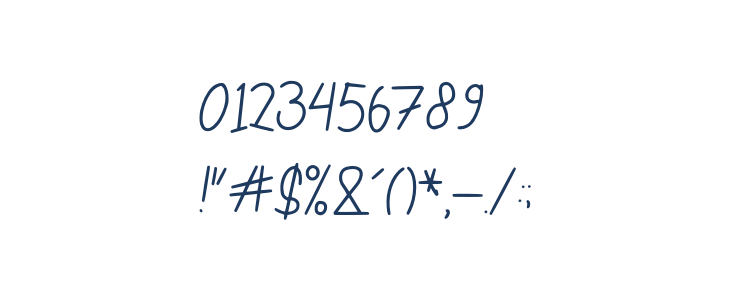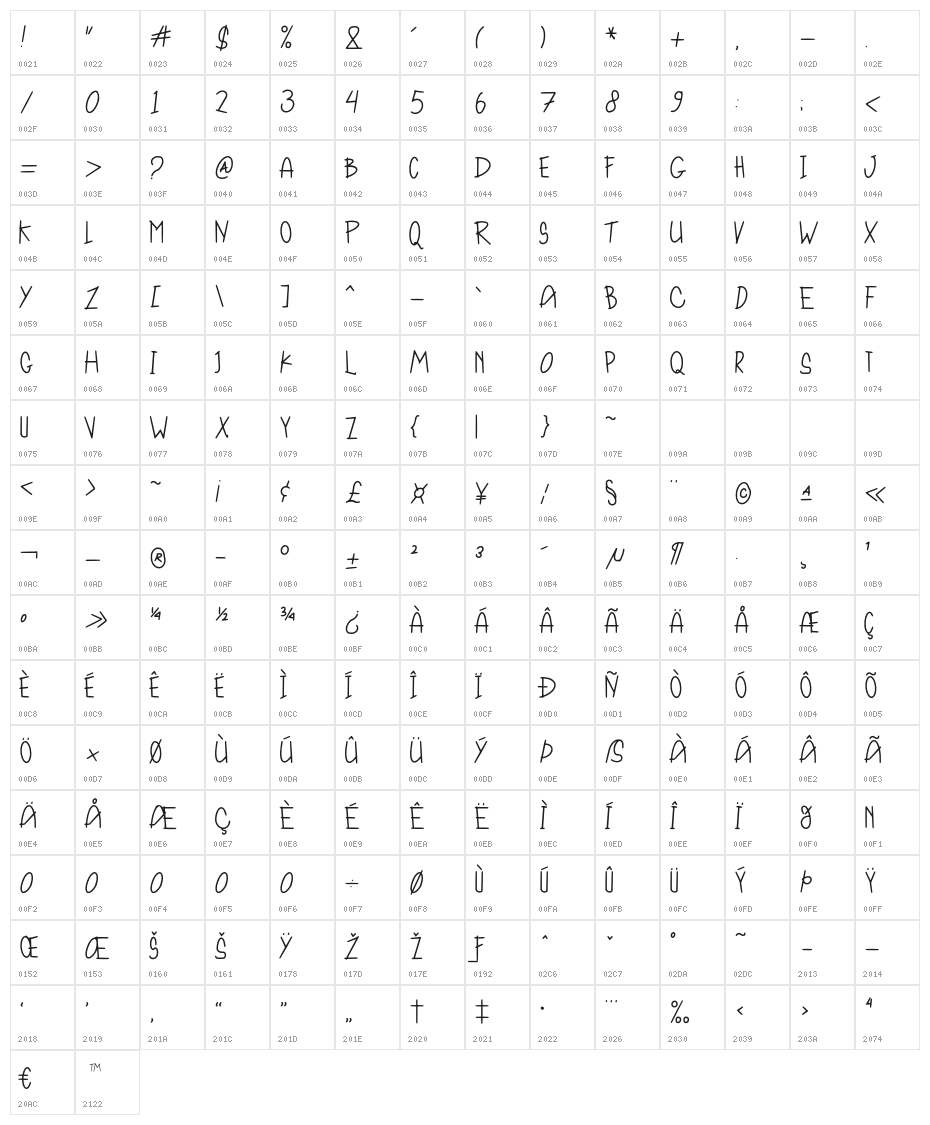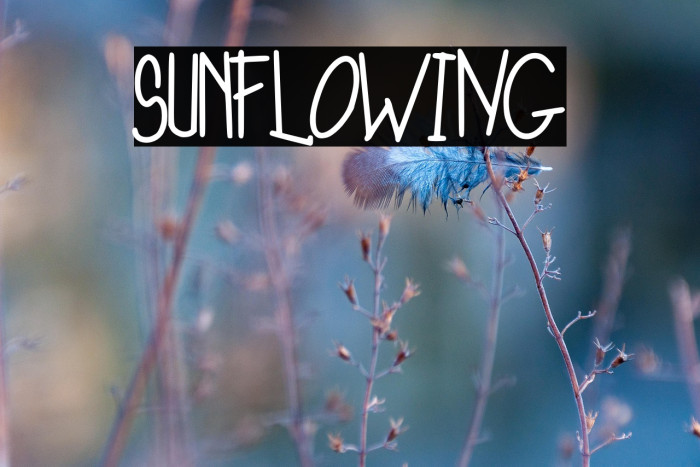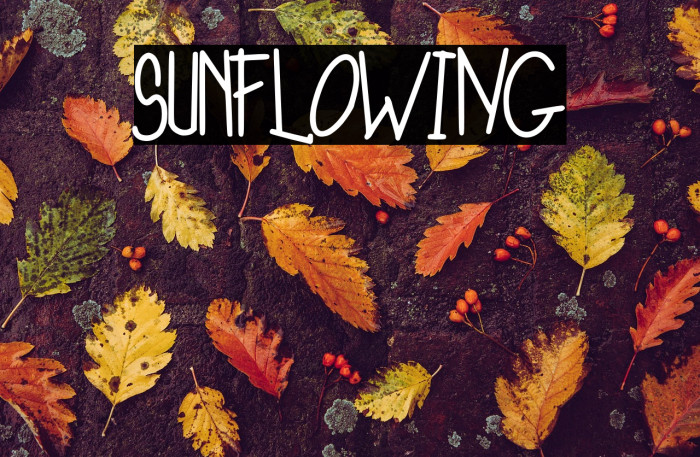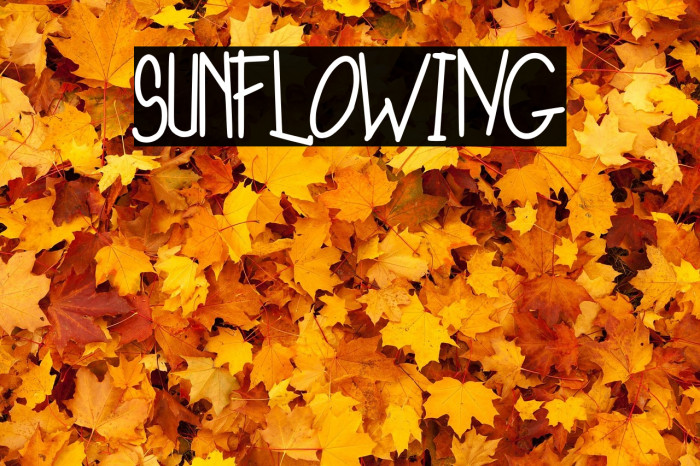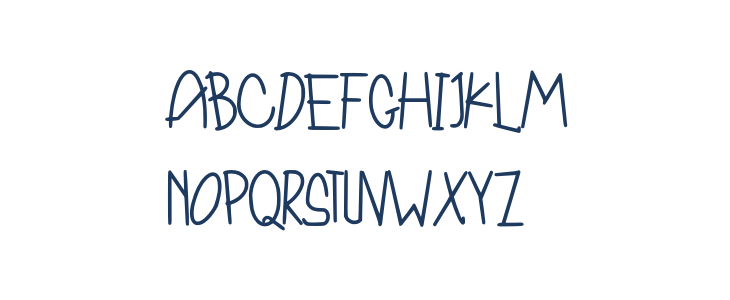
SunFloWiNG Font
SunFloWiNG Description
This font features a playful and casual handwritten style, characterized by its irregular strokes and slightly tilted letters. The uppercase and lowercase letters maintain a consistent flow, giving it a cohesive appearance. The numbers and special characters are designed to match the whimsical nature of the alphabet, making it suitable for informal and creative projects. The overall look is friendly and approachable, with a touch of spontaneity that adds personality to any text.
| Overall Style | Casual |
| Use Case | Headlines, Informal text, Creative projects |
| Proposed Projects | Ideal for greeting cards, children's books, casual branding, and social media graphics. |